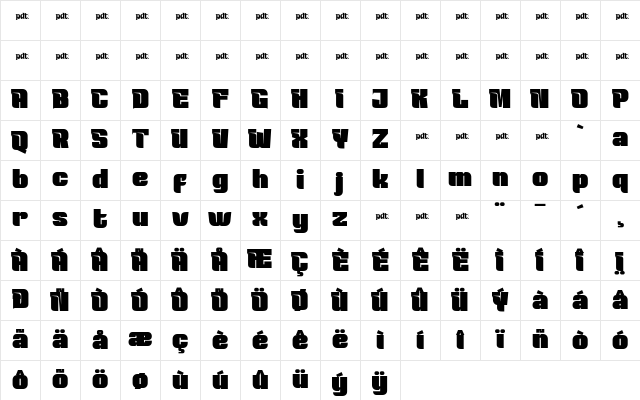
Complete EKUHOT Regular glyph index. Displaying only characters natively supported by EKUHOT Regular font.
EKUHOT is a composed and adaptable typeface that performs quietly and consistently across a wide range of design contexts.